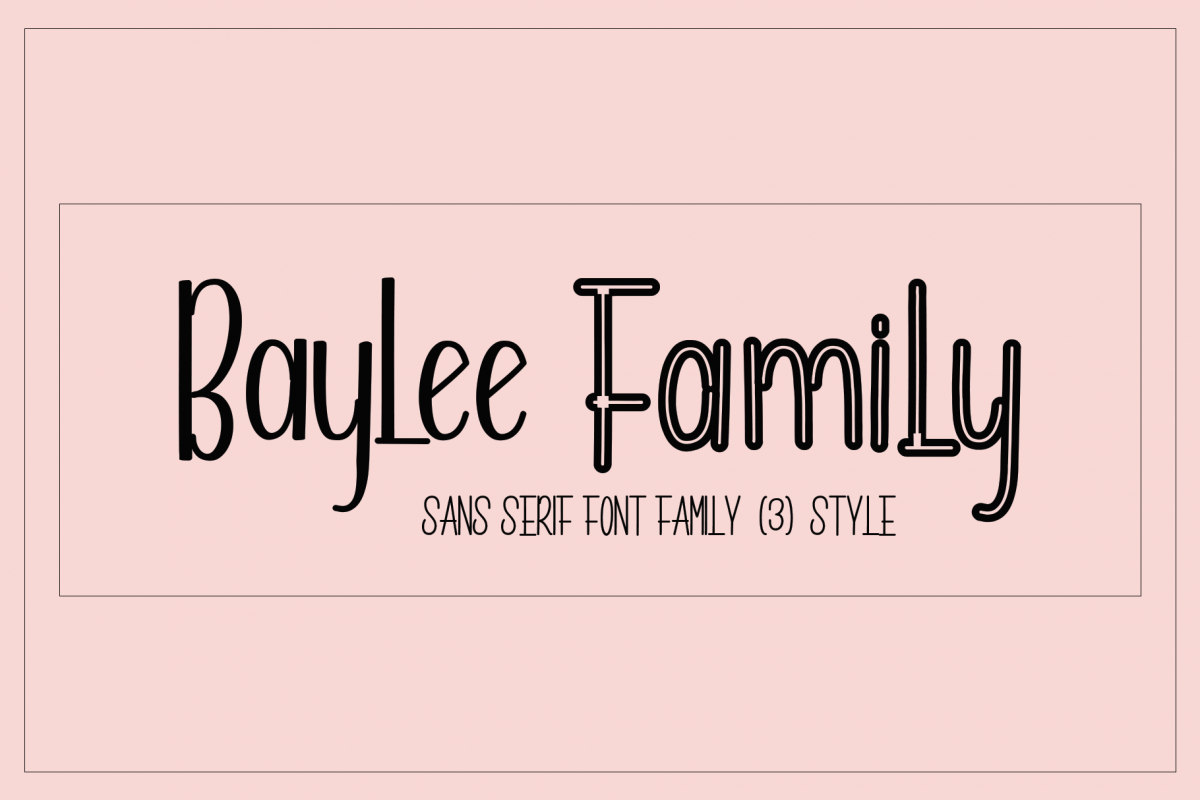
Baylee Family
Baylee  Font Family is new sans serif font has a sleek typeface, font is very simple and easy to manipulate: logos, slogan and made in advertising messages,wedding invitation, t-shirt, letterhead, signage, lable, news, posters, badges etc.